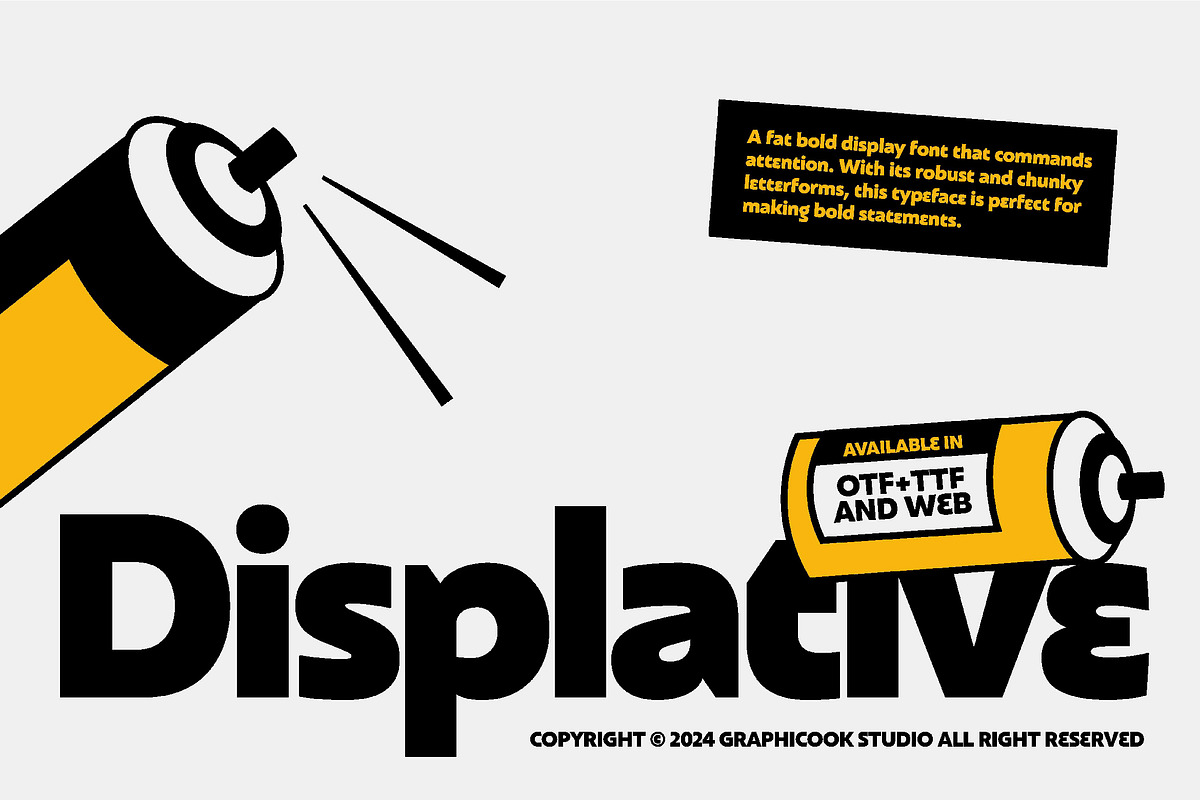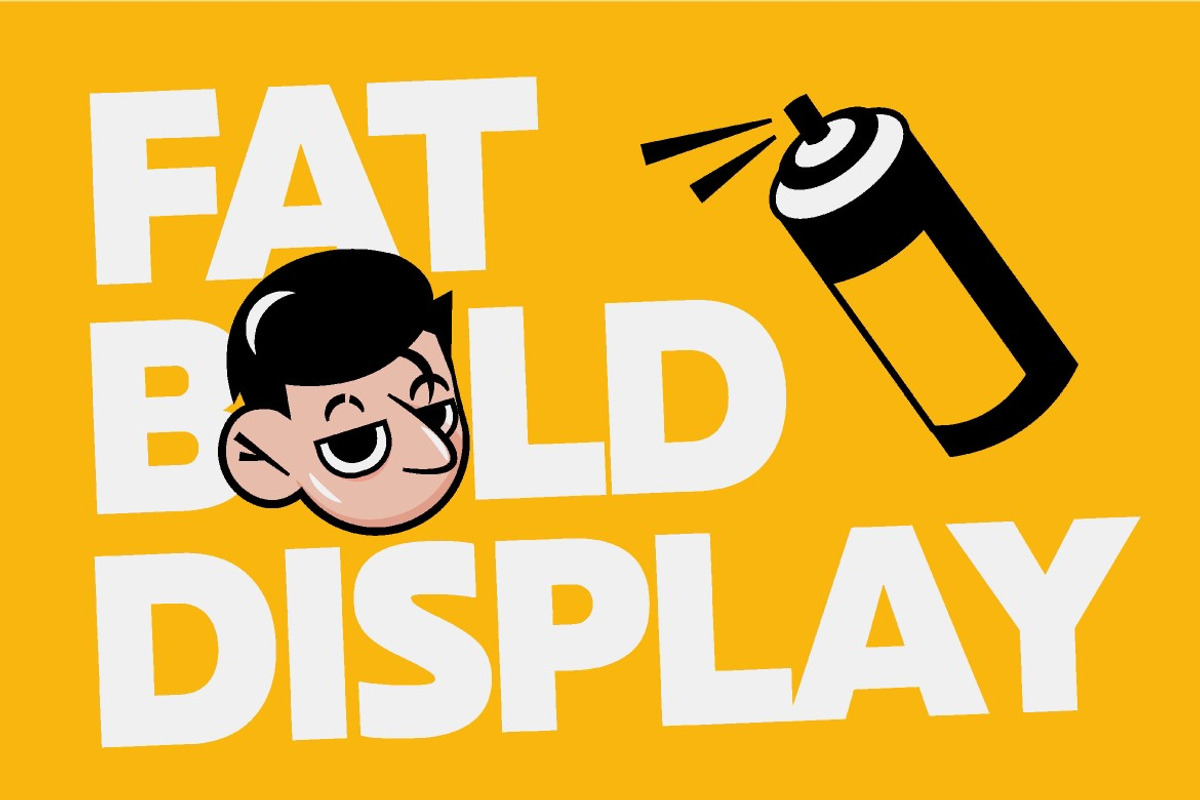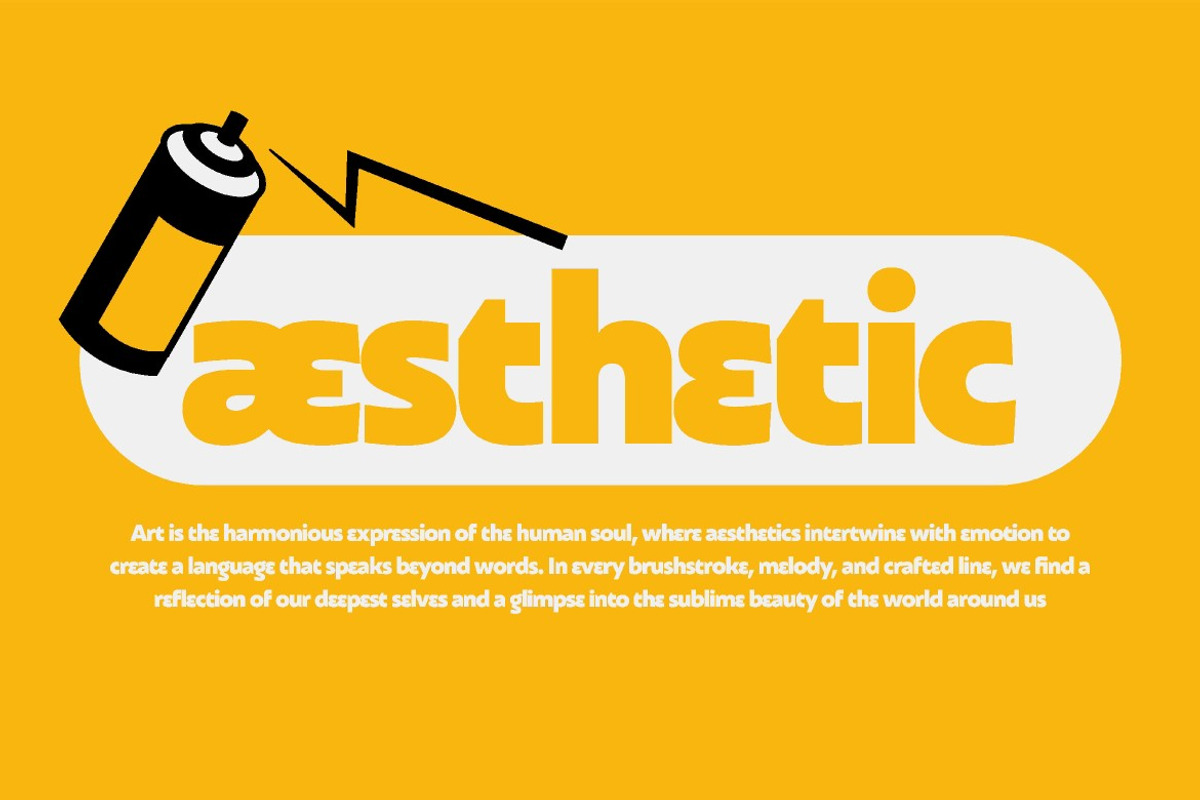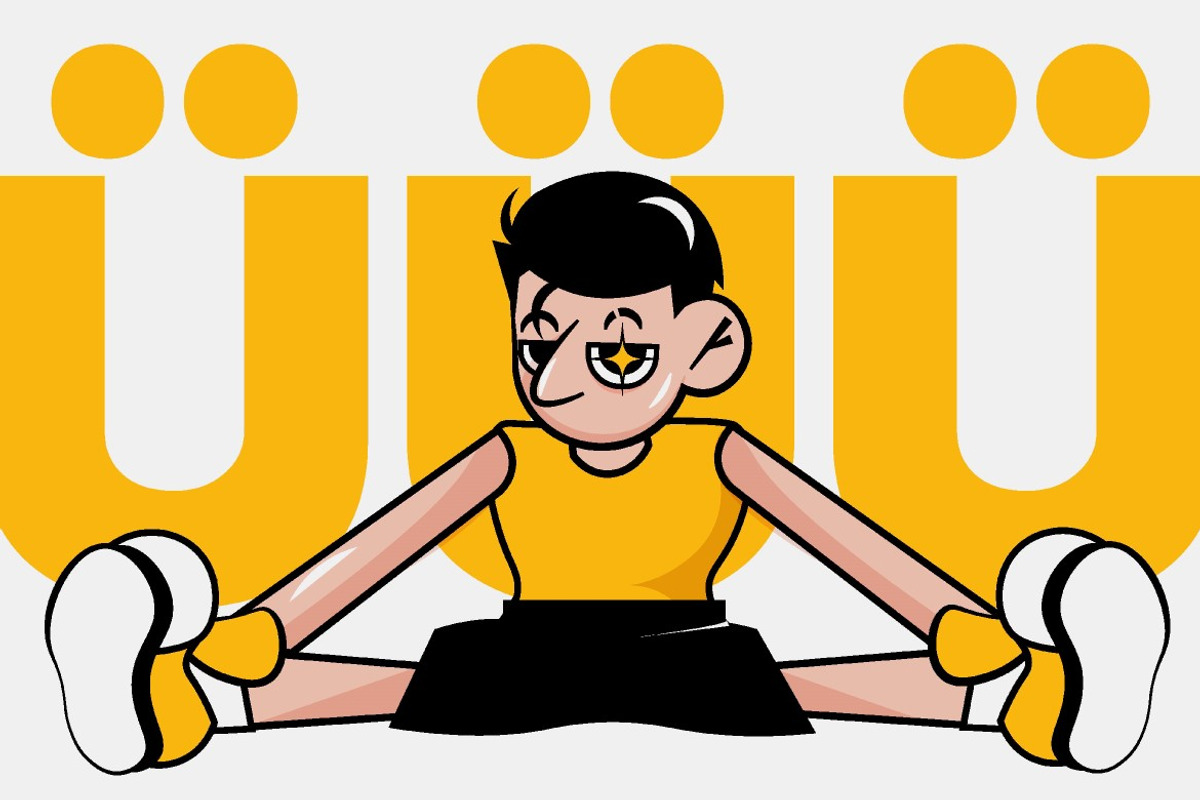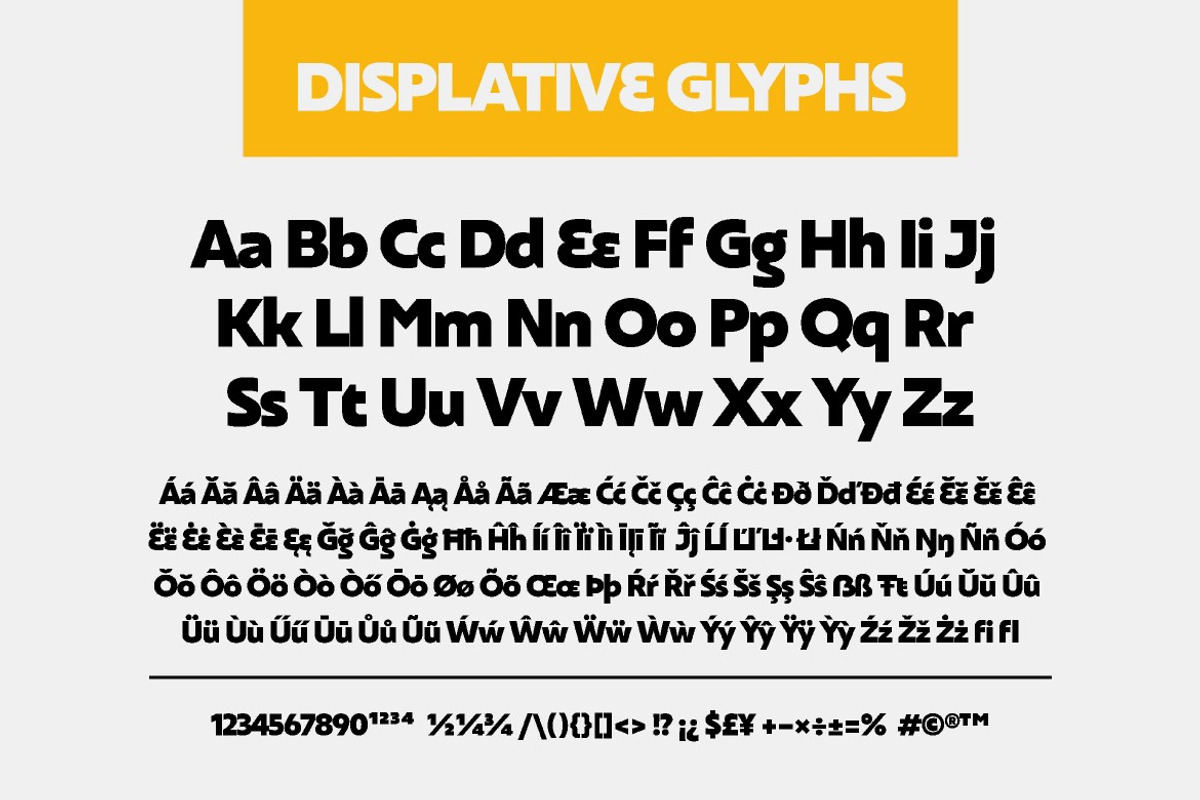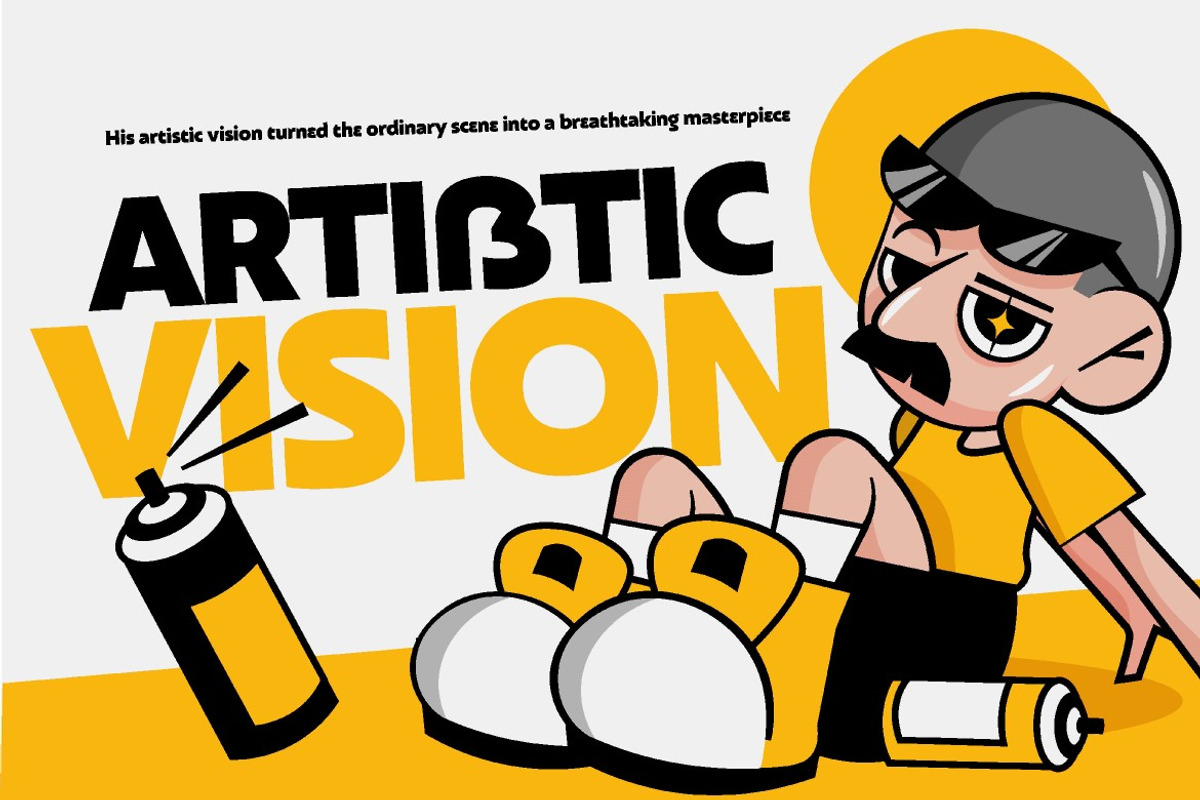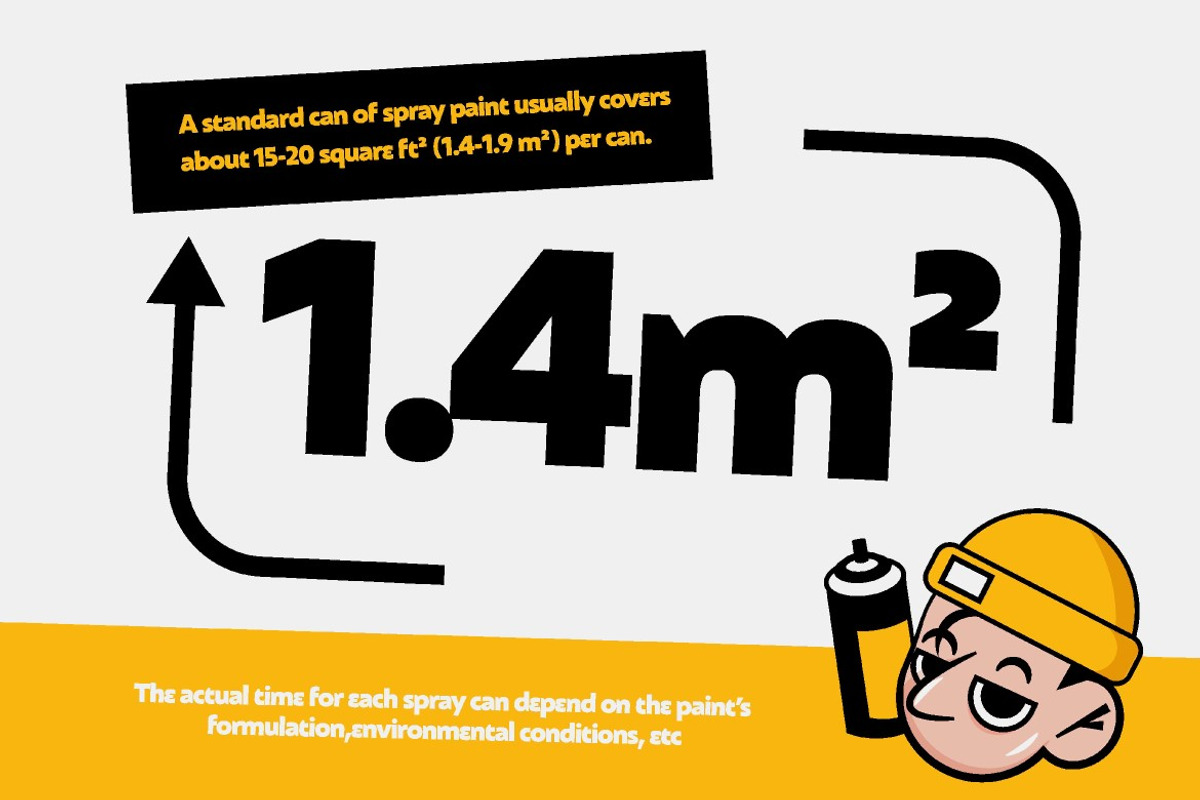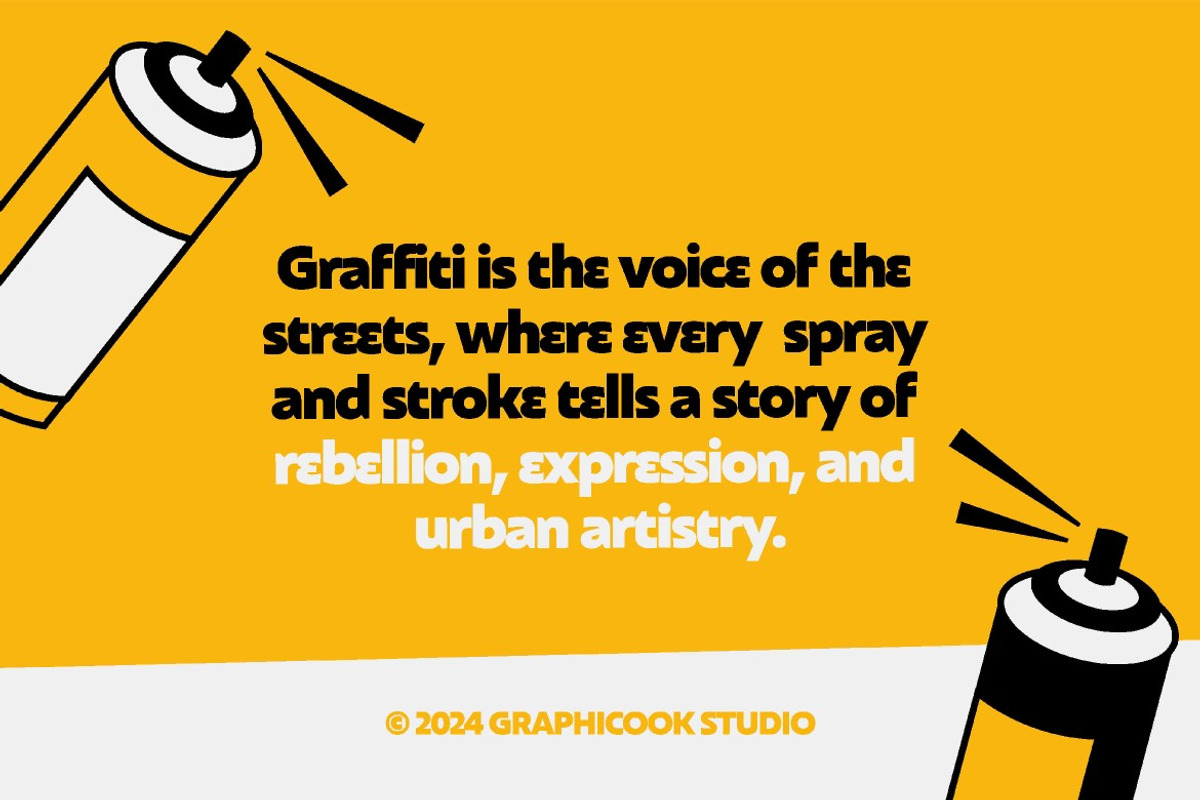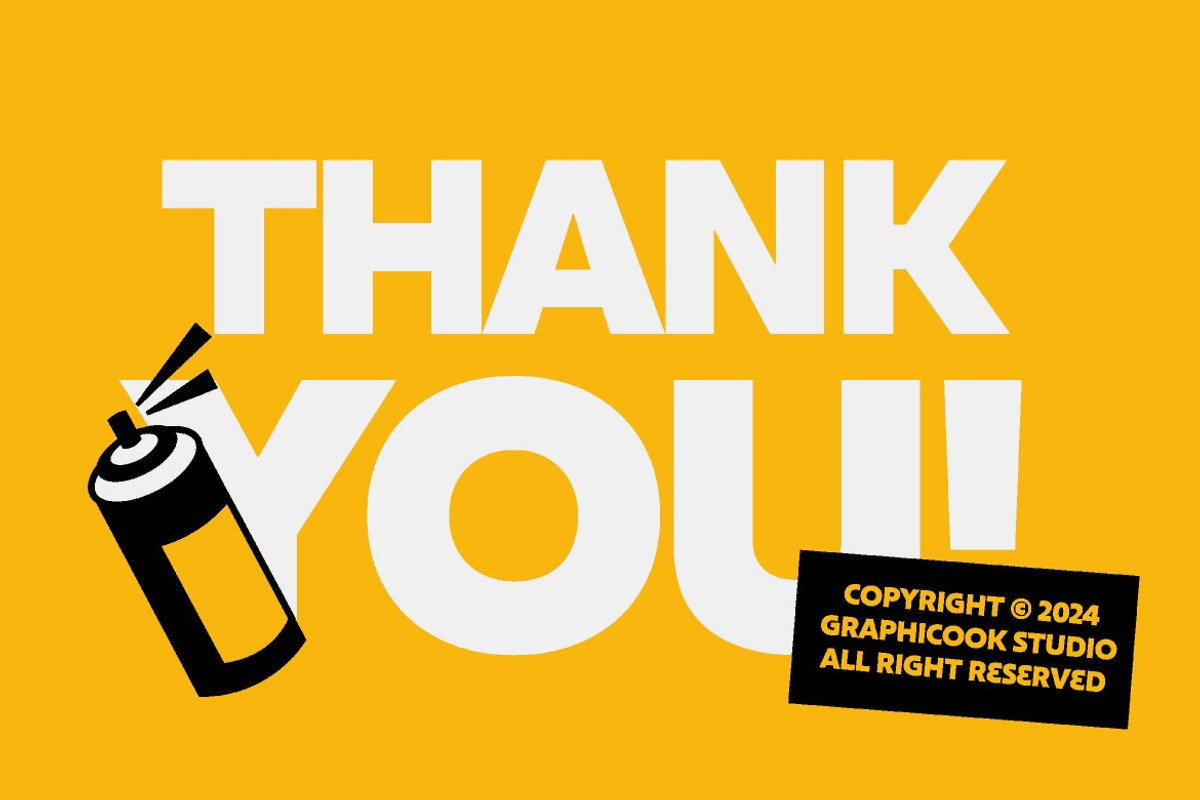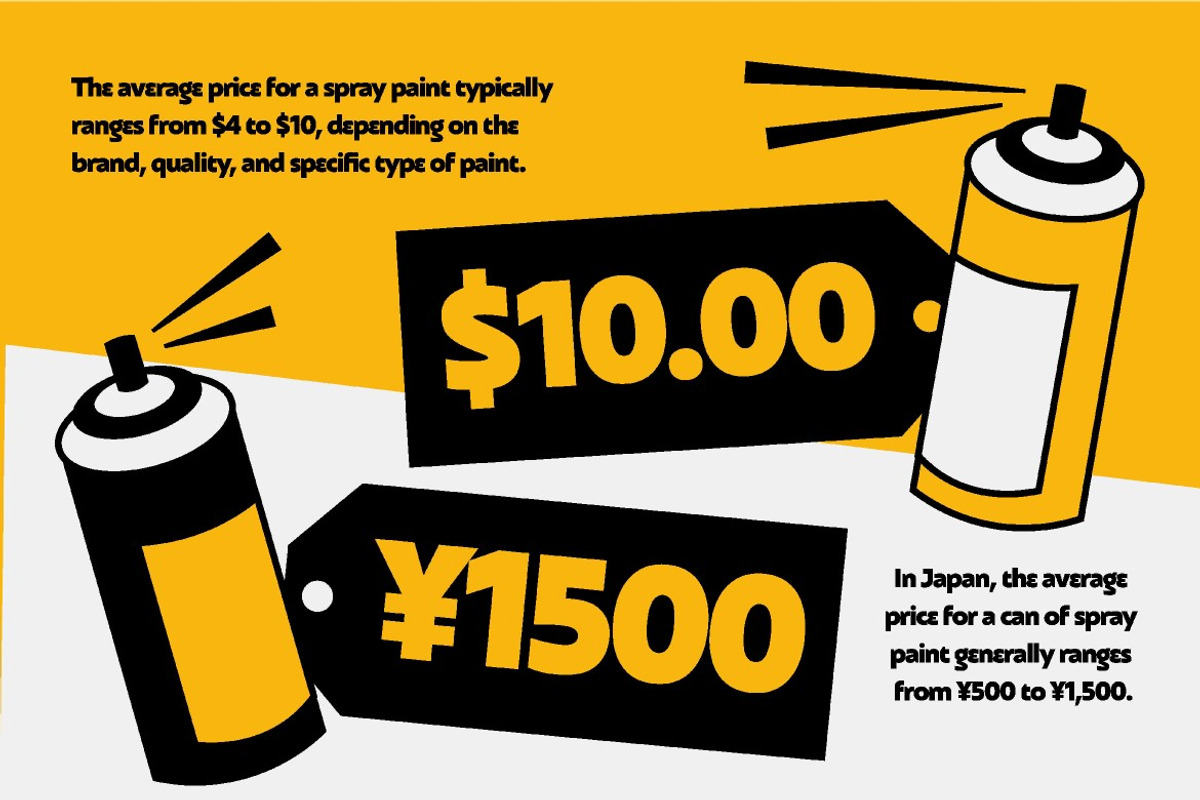
Displative
Displative explores the bold and unique side of sans serif fonts. It's ideal for making a statement in headlines, branding, websites, or editorial projects.
Displative is perfect for headlines, logotypes, magazines, packaging, quotes, movies, games, cover albums, book covers, and flyers, it's a perfect solution for creating eye-catching designs that stand out in any context.